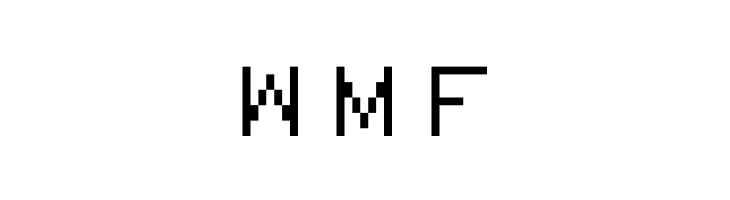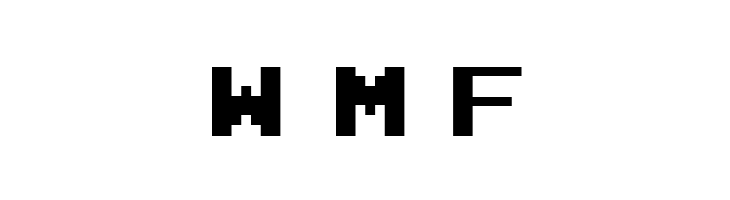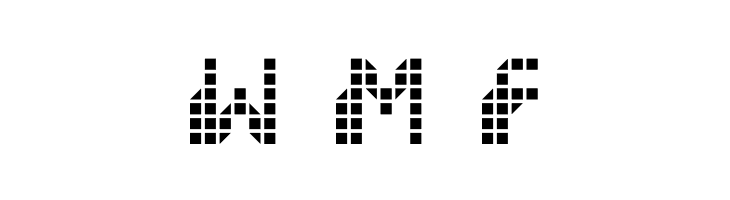
A playful collection of game-themed symbols for decorative use.
A bold, playful font with characters in rounded square borders, resembling game tiles.
A bold, pixelated font with a retro arcade game aesthetic.
A bold, distressed font with a rugged, industrial feel.
A retro, pixelated font inspired by early video game graphics.
A pixelated, retro font inspired by classic arcade games.
A pixelated, retro-style font inspired by classic video games.
A bold, pixelated font with a retro video game aesthetic.
Cartoon and pixel art character font inspired by classic video games.
A bold, geometric font with a pixelated, retro video game style.
A bold, geometric font with a 3D cube design, perfect for creative projects.
A bold, pixelated font inspired by classic video game graphics.
A pixelated, blocky font inspired by retro digital displays and video games.
A bold, pixelated font inspired by classic arcade games.
A pixelated, shaded, oblique font with a retro video game style.
A bold, pixelated font with a retro, 8-bit video game style.
A decorative font inspired by classic arcade game graphics, featuring pixelated, nostalgic symbols.